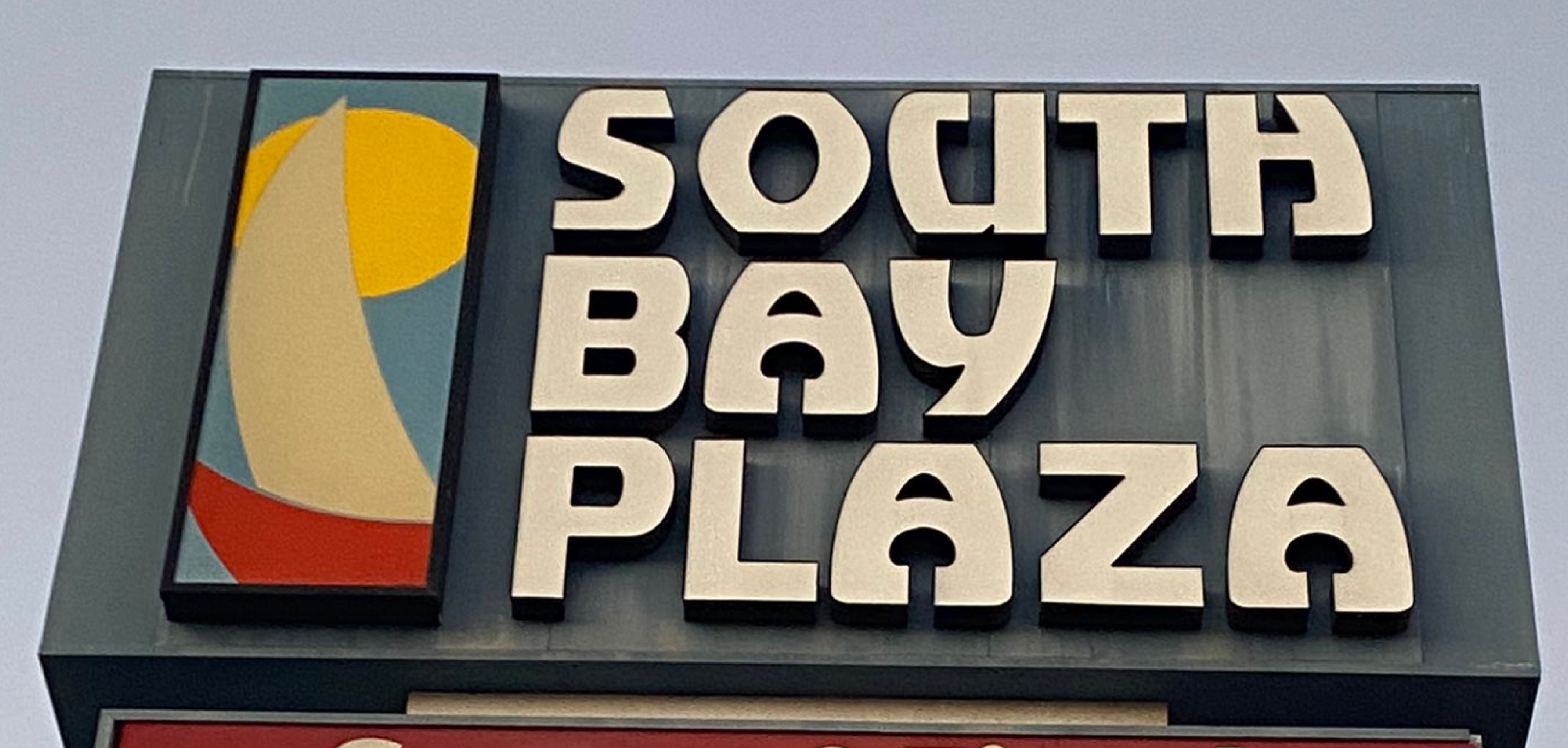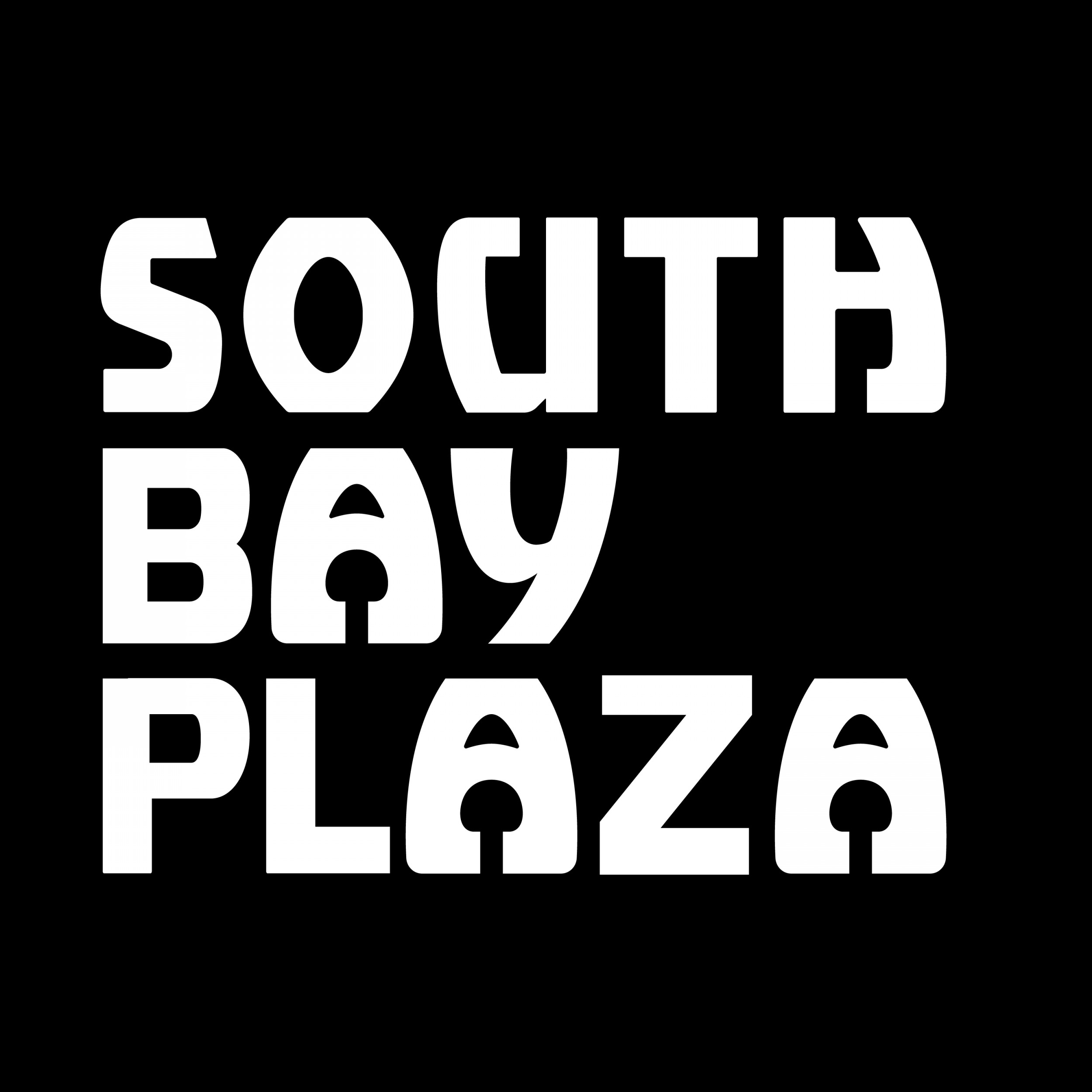
hi again, sorry for the 2nd post, accidentally hit enter and it posted. but saw this sign in national city in a local shopping center, font feels like an art nouveau style. In the 2nd picture I vectored out the font to have a better look at it.
This is based on Martin Wait’s Company. His digital version includes the alternate Y that can be seen here (although not as OpenType alternate, you’d have to insert it from the glyph palette).
I’ve posted this to Fonts In Use, with some more info about the shopping center: https://fontsinuse.com/uses/38302/south-bay-plaza-sign